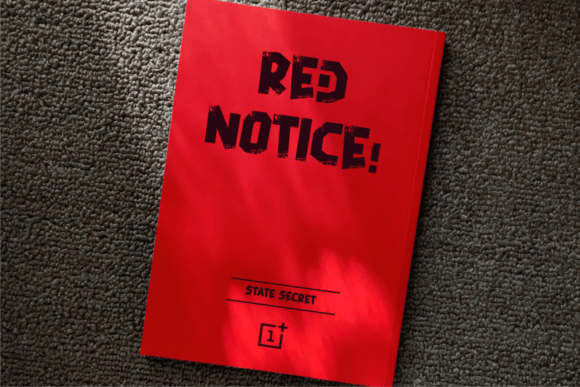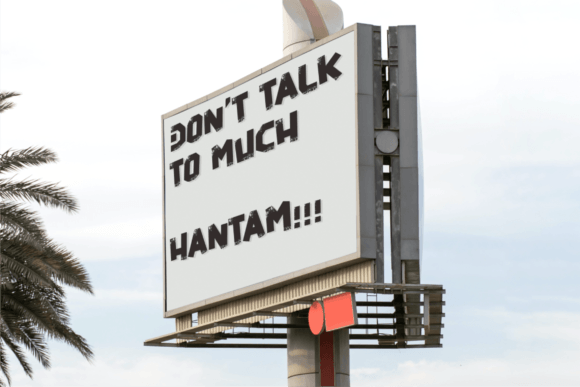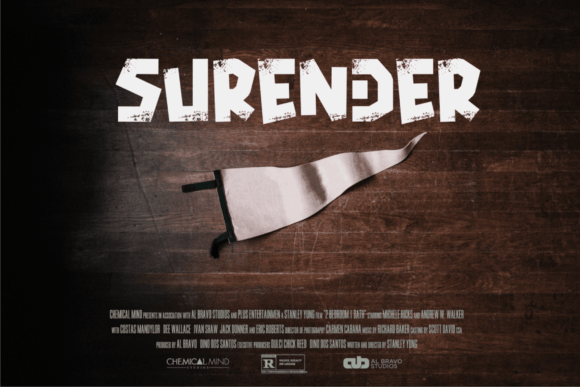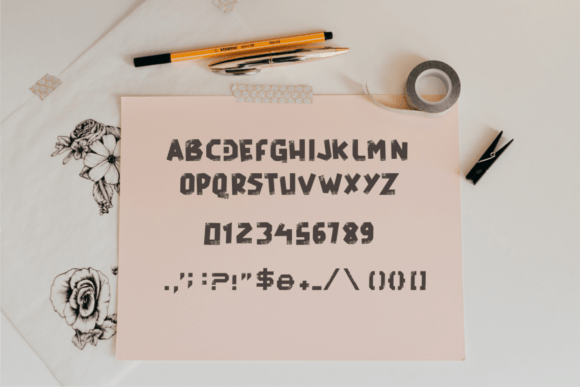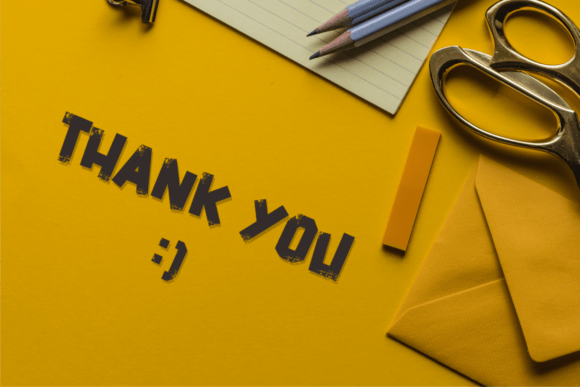
The Desertian Font: A Bold and Authentic Display Font for Your Creative Projects
Have you ever been in the middle of a design project, and suddenly, you’re stuck on finding the perfect font? I remember a recent experience where I was working on a logo design for a client, and I just couldn’t seem to find a font that captured the essence of their brand. That’s when I stumbled upon the Desertian font, and it completely transformed my design. In this article, I’ll share my experience with the Desertian font, its features, and how to make the most of it in your creative projects.
A Personal Review of Desertian Font
As a designer, I’m always on the lookout for fonts that can elevate my designs and make them stand out. The Desertian font has been a game-changer for me, and here’s what I love about it:
- ✨ Bold and authentic: The Desertian font has a unique, bold, and authentic feel to it, making it perfect for display purposes.
- ✅ Versatile: This font is suitable for a wide range of projects, including logos, t-shirt printing, and more.
- 🔥 Attention-grabbing: The Desertian font is sure to grab attention and make your designs stand out.
While the Desertian font is amazing, there are a few quirks to be aware of:
- 🤔 Limited use cases: Due to its bold nature, the Desertian font might not be suitable for body text or smaller sizes.
- ⚠️ Glyph limitations: Some users have reported that the font could benefit from more glyphs and special characters.
The Story Behind Desertian Font
The Desertian font was created by a talented type designer who drew inspiration from the rugged and majestic landscapes of the desert. The font’s bold and authentic feel is a reflection of the desert’s vast expanses and the resilience of the people who inhabit it.
| Font Name | Desertian Font |
| Author | kalingga.albert |
| What is the Desertian font best suited for? | The Desertian font is perfect for display purposes, such as logos, t-shirt printing, and headlines. |
| Is the Desertian font suitable for body text? | Due to its bold nature, the Desertian font might not be the best choice for body text or smaller sizes. |
| Is the Desertian font available in different weights? | Currently, the Desertian font is available in a single weight, but the designer may release additional weights in the future. |